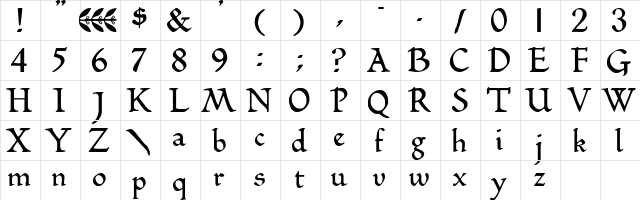
BarbetDisplaySSK Bold Free Font
Design Context for BarbetDisplaySSK
BarbetDisplaySSK is built around its visual character rather than neutral utility - its distinctive forms are designed to make an impression at display sizes. Its bold stroke weight gives it real presence on the page.
Font Pairing: Pair with a clean neutral sans-serif for body copy to let BarbetDisplaySSK's character lead without overwhelming the composition.
Pro Tip: Use BarbetDisplaySSK exclusively at display sizes - it was designed to be seen, not read at length. Let a neutral companion handle body copy.